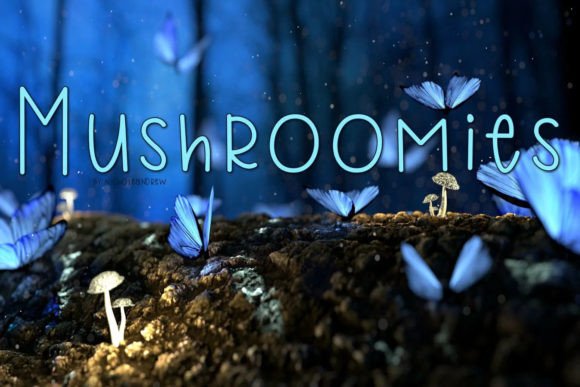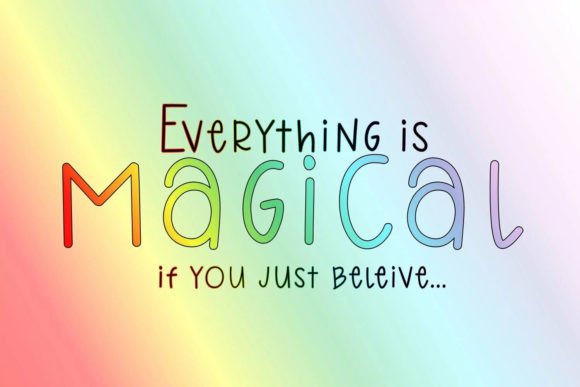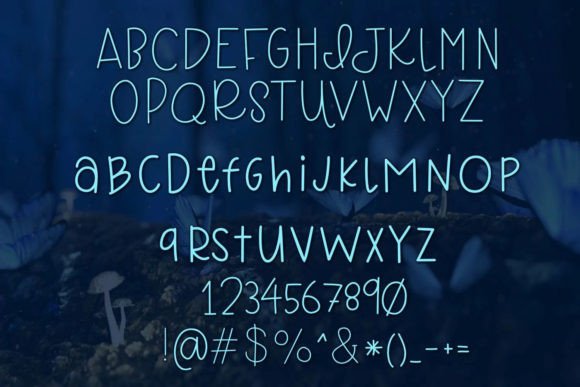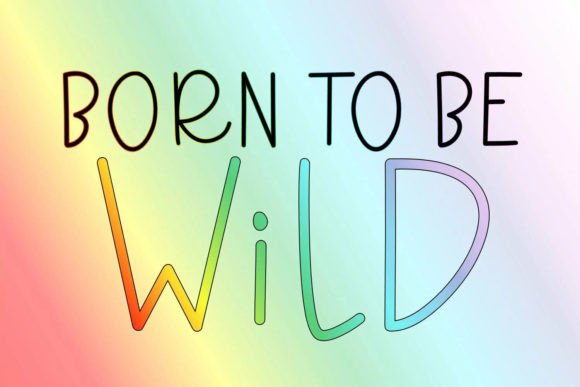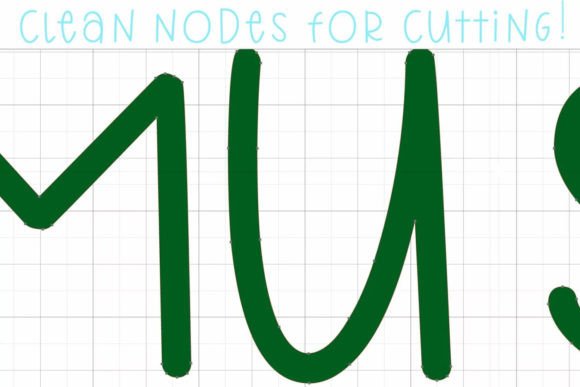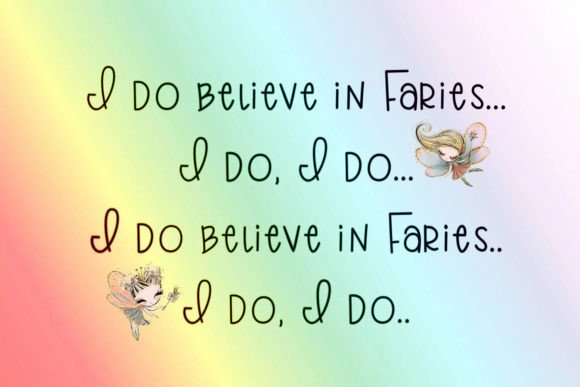
Mushroomies Font
About Mushroomies Font
Introducing Mushroomies, a delightful and fun handwritten font that brings a touch of cuteness to your creative projects. Mushroomies is an adorable monoline font with some cute flair, designed to add a playful and charming element to your designs. Give “Mushroomies” a try on your next project, as it features clean nodes optimized for cutting. This font will look great on a variety of items, from water bottles and pillowcases to shirts and phone cases, offering a versatile and charming aesthetic.
The playful and adorable nature of Mushroomies makes it a perfect choice for projects where you want to infuse a sense of whimsy and charm. Whether you’re working on personalized items or crafting fun designs, this font adds a delightful touch that resonates with cuteness.
Mushroomies’ monoline style ensures a consistent and smooth appearance, creating a clean and appealing look for your text. The cute flair adds an extra layer of personality, making it suitable for a wide range of applications.
With clean nodes optimized for cutting, Mushroomies is ready to enhance your crafting projects. Whether you’re using a cutting machine for vinyl designs or crafting personalized items, this font streamlines the process, ensuring a smooth and efficient workflow.
In summary, Mushroomies is more than just a font; it’s a design asset that brings joy and cuteness to your projects. Let Mushroomies be the font that adds a delightful and charming touch to your water bottles, pillowcases, shirts, phone cases, and more, making them stand out with playful flair.